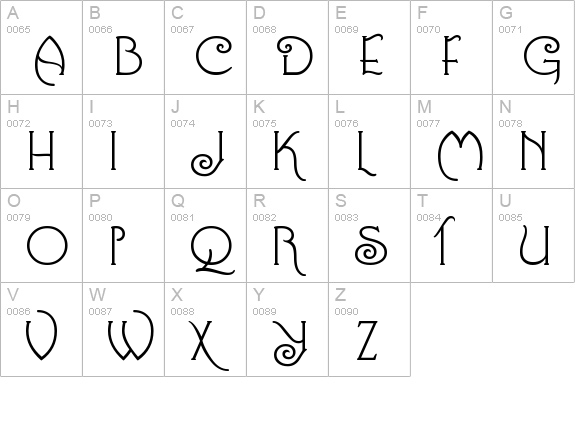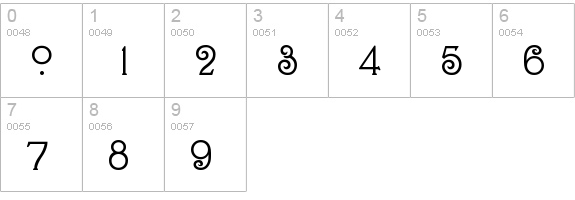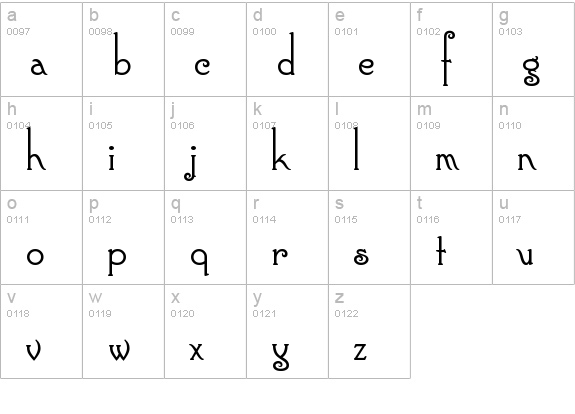
Introducing Connie, a beautiful and versatile font that effortlessly combines elegance with a touch of playfulness. With its graceful curves and delicate lines, Connie is the perfect choice for any design project seeking a touch of sophistication. Connie is a free font that offers a wide range of possibilities. Whether you're designing invitations for a special event, creating eye-catching logos, or crafting stunning headlines, Connie will elevate your work to new heights. Its versatility allows it to seamlessly adapt to various design styles, from modern to vintage, ensuring that your creations always leave a lasting impression. What sets Connie apart is its ability to strike the perfect balance between classic and contemporary aesthetics. Its timeless appeal makes it suitable for a multitude of applications, from branding to editorial design, and everything in between. With Connie, you can effortlessly convey a sense of professionalism and refinement while still maintaining a fresh and contemporary edge. And the best part? Connie is freely available to download at FontsMarket.com. As a free font, Connie provides an incredible opportunity for designers and creatives to access high-quality typography without breaking the bank. So whether you're a seasoned professional or just starting out on your design journey, you can enjoy the beauty and versatility of Connie without any limitations. Don't miss out on the chance to enhance your design projects with the elegance and charm of Connie. Download it for free at FontsMarket.com and bring your creations to life with this stunning font that will surely captivate your audience.